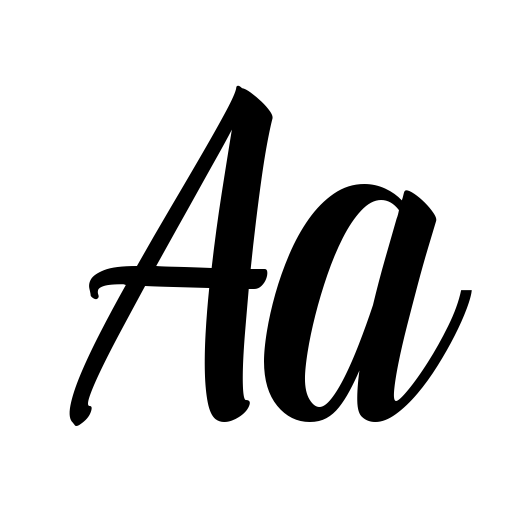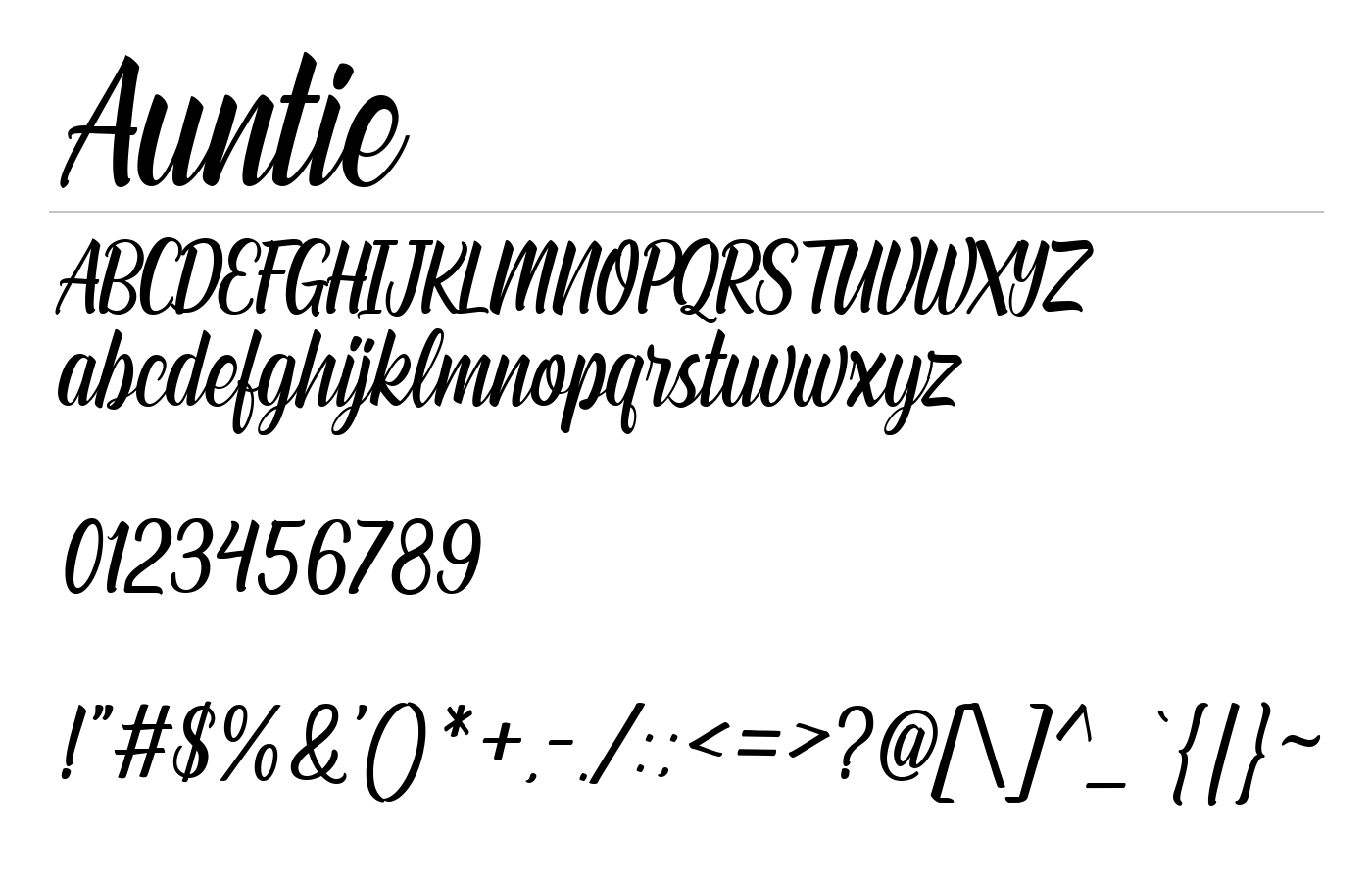
Auntie Font is a lively and elegant script typeface with a smooth, hand-lettered feel, featuring slender, slightly slanted characters with moderate contrast. Its flowing letterforms and clean, modern style make it perfect for branding, invitations, and editorial designs that seek a friendly yet sophisticated touch. This font works well in headlines and logos where a personal, stylish expression is desired.
Auntie Font
About Auntie Font